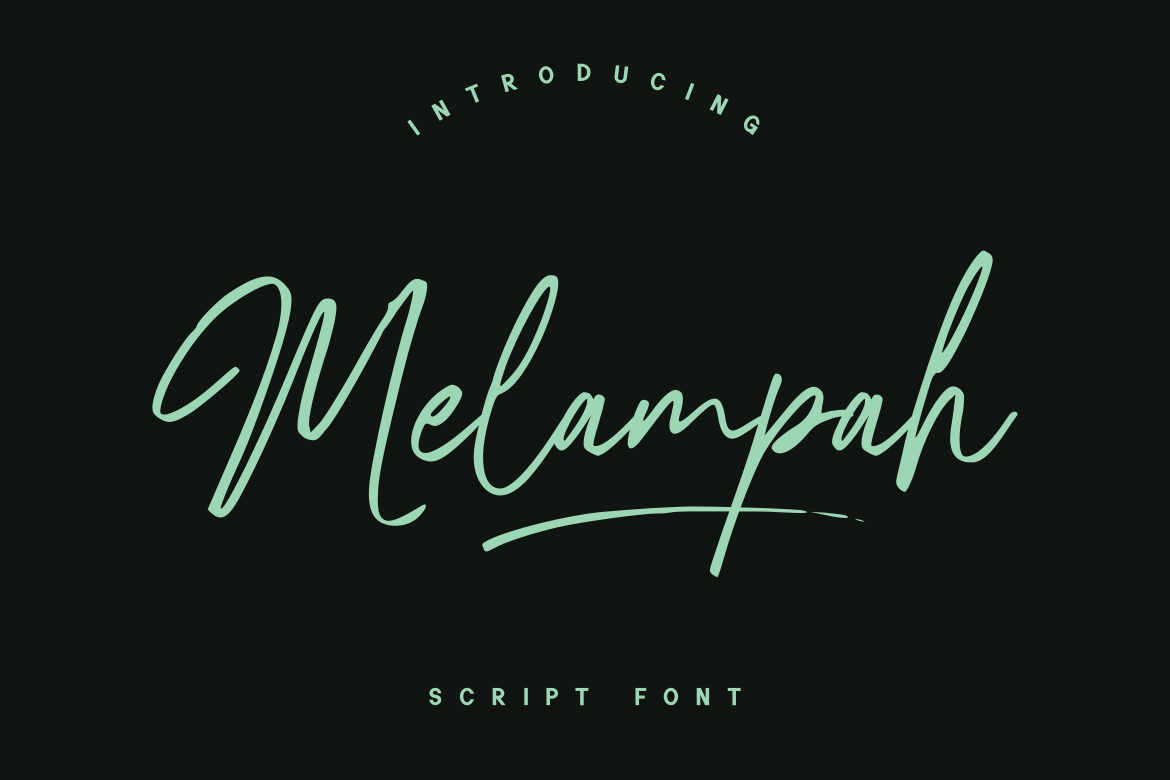
Melampah Font
Melampah Font features modern handwritten calligraphy with feminine flair designed by GFR Creative and is ideal for business cards, invitations, blogs, social networks, product branding and much more. Furthermore, the font also contains some ligatures and Initials.
Melampah Handwritten Font